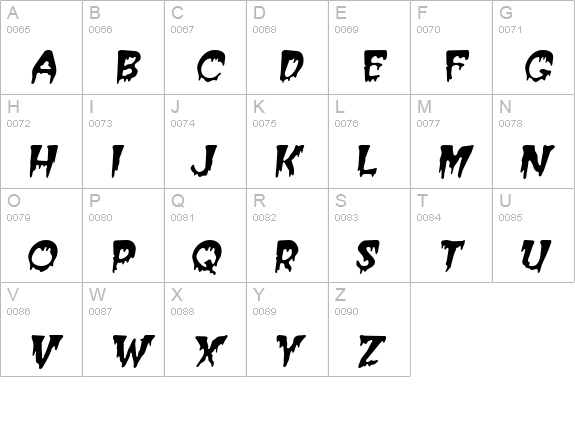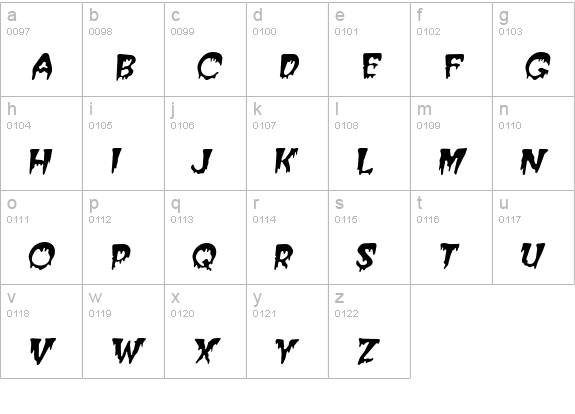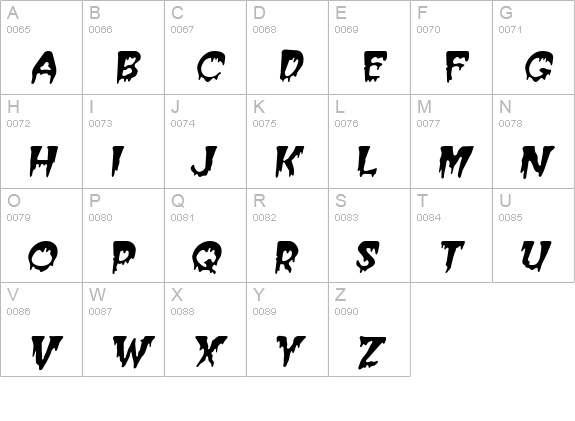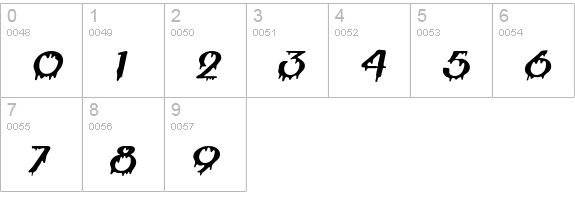
Creepy Italic Font Details
Creepy Italic is a distinctive, italic variant in the Creepy typeface family \xE2\x80\x94 well suited to design and typography projects.
Creepy Italic font is a hauntingly beautiful typeface that exudes an eerie charm, perfect for adding a touch of mystery to your designs. With its twisted, slanted letters and unsettling aesthetic, this font is sure to capture attention and leave a lasting impression. Whether you're working on a Halloween-themed project or looking to add a spooky vibe to your work, Creepy Italic font is the ideal choice. Best of all, this font is available for free download at FontsMarket.com, making it easily accessible for all your design needs. Embrace the darkness and download Creepy Italic font today to add a chilling flair to your creations.